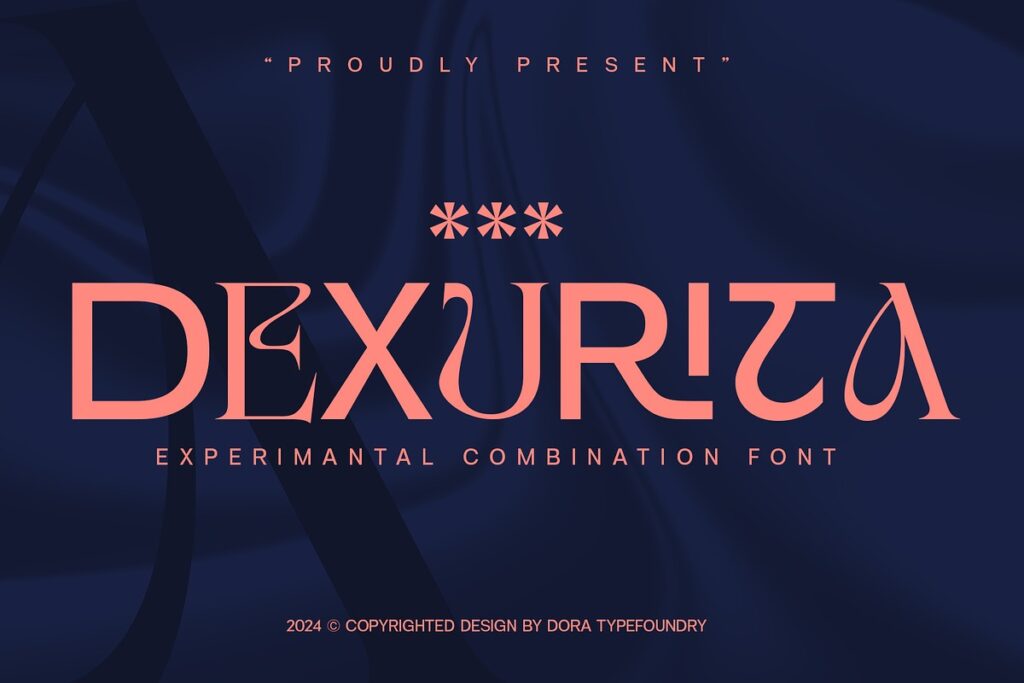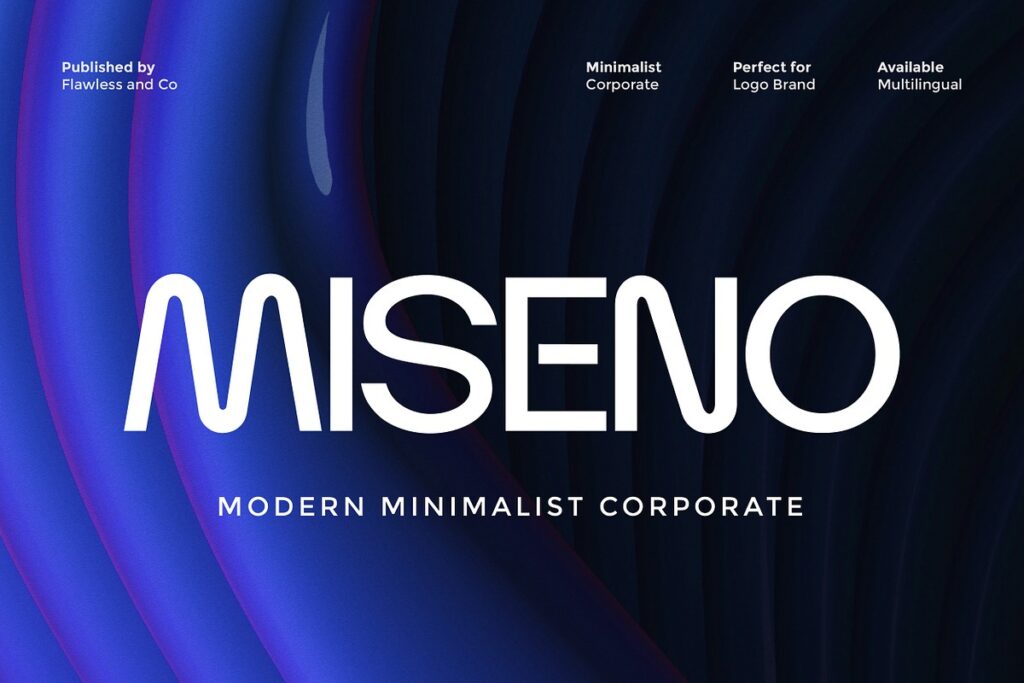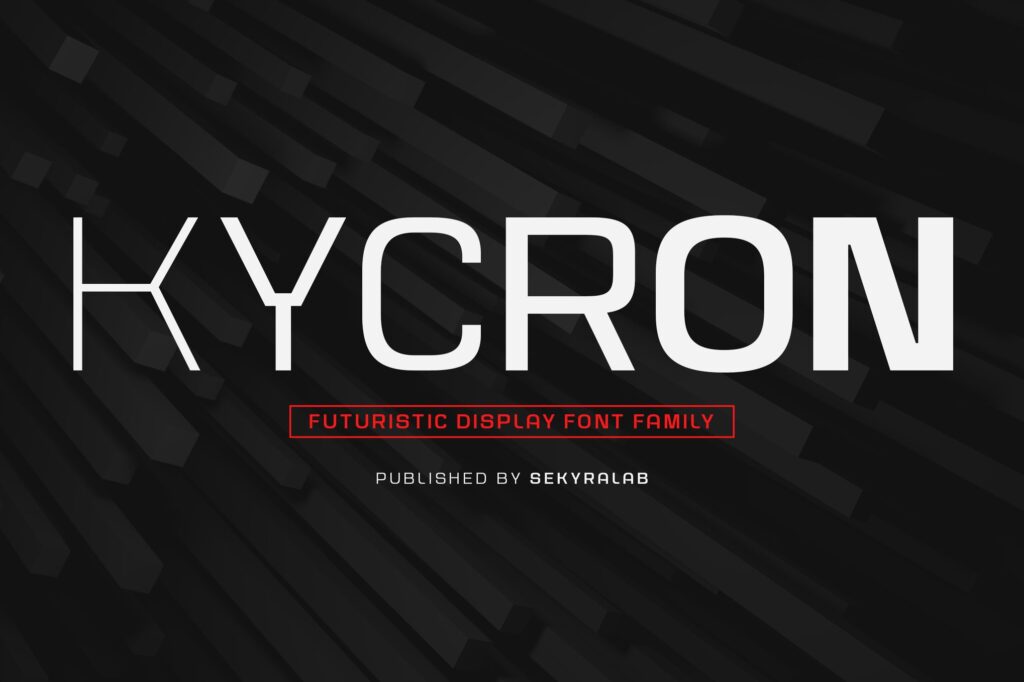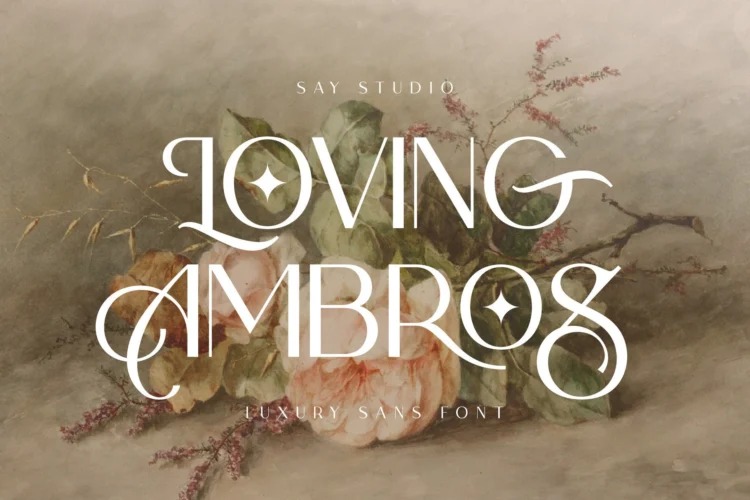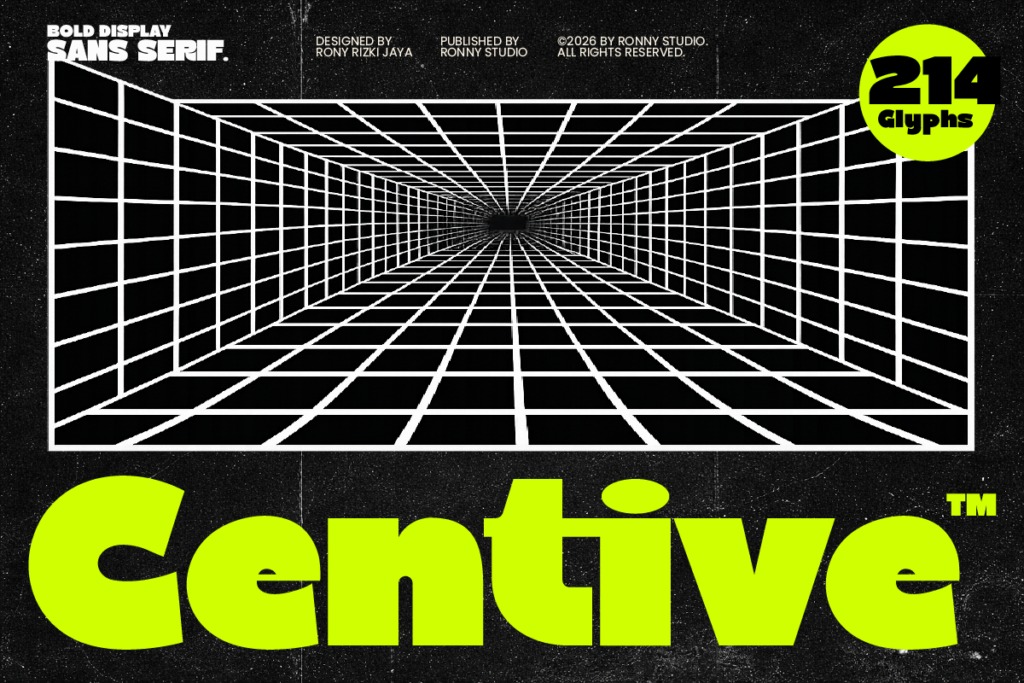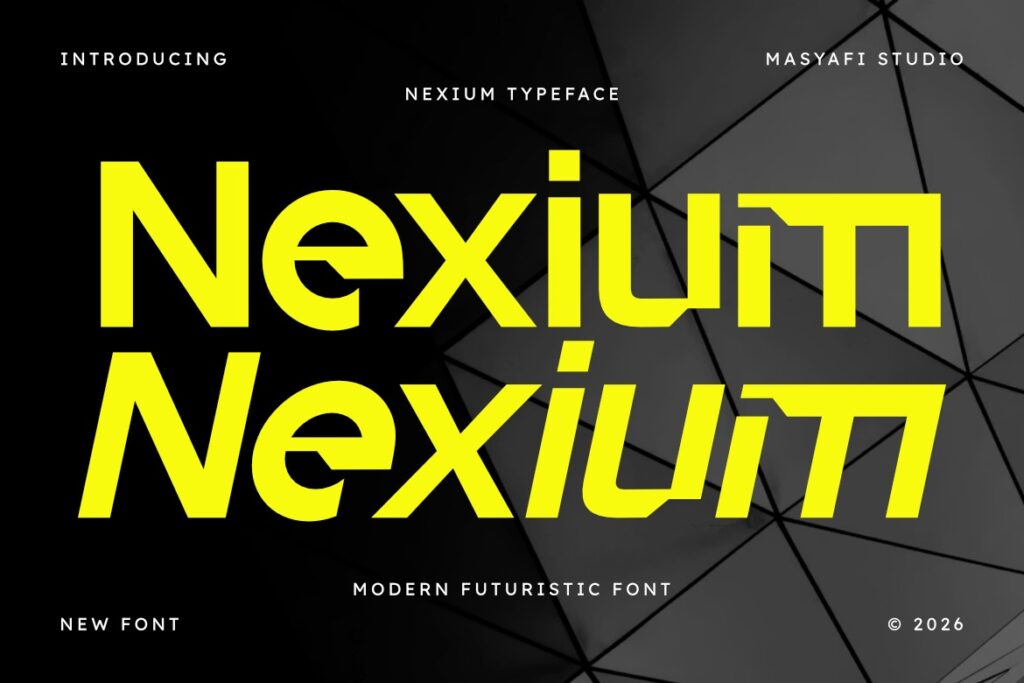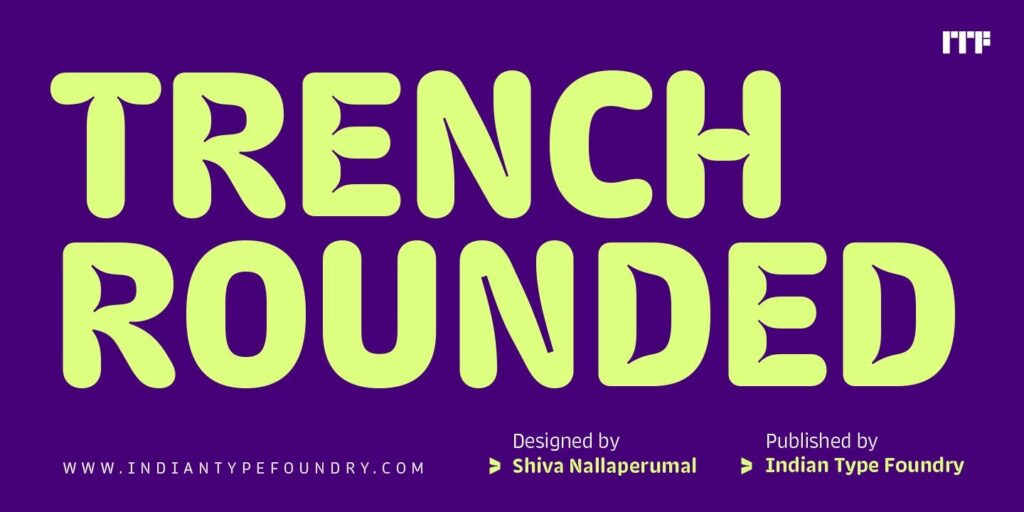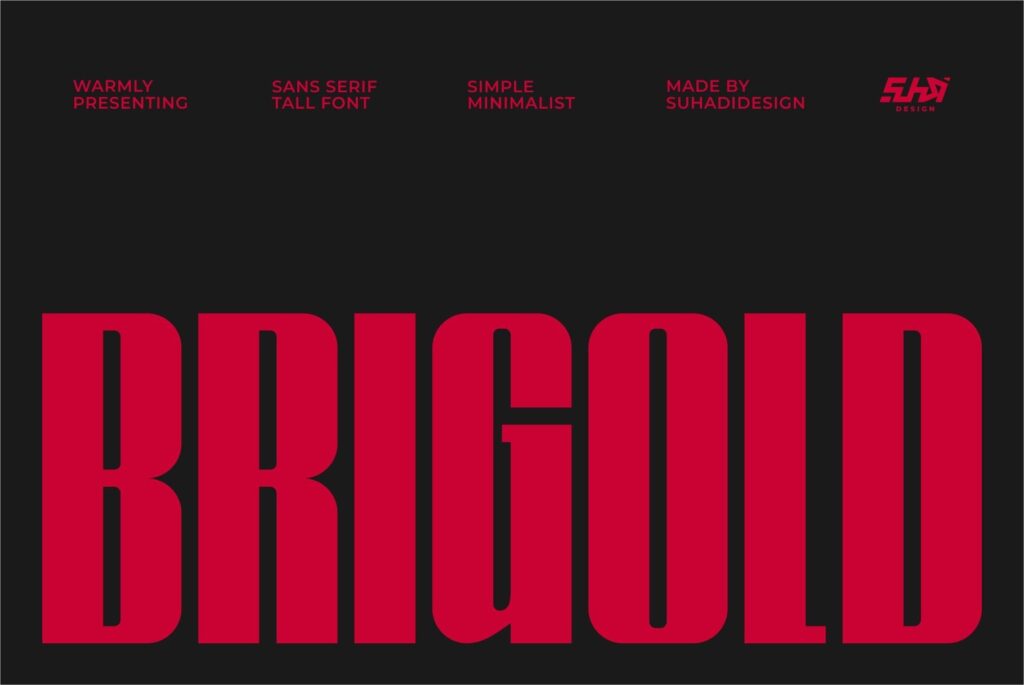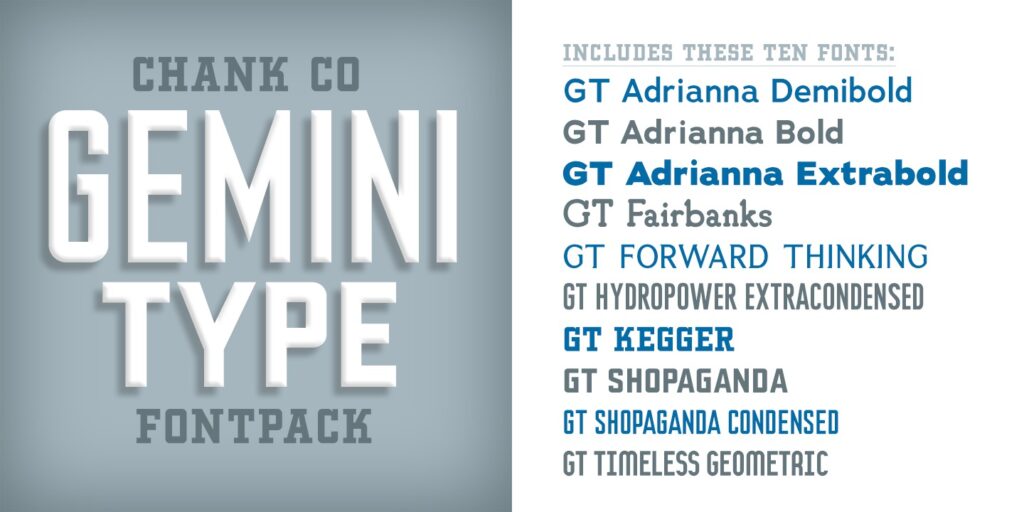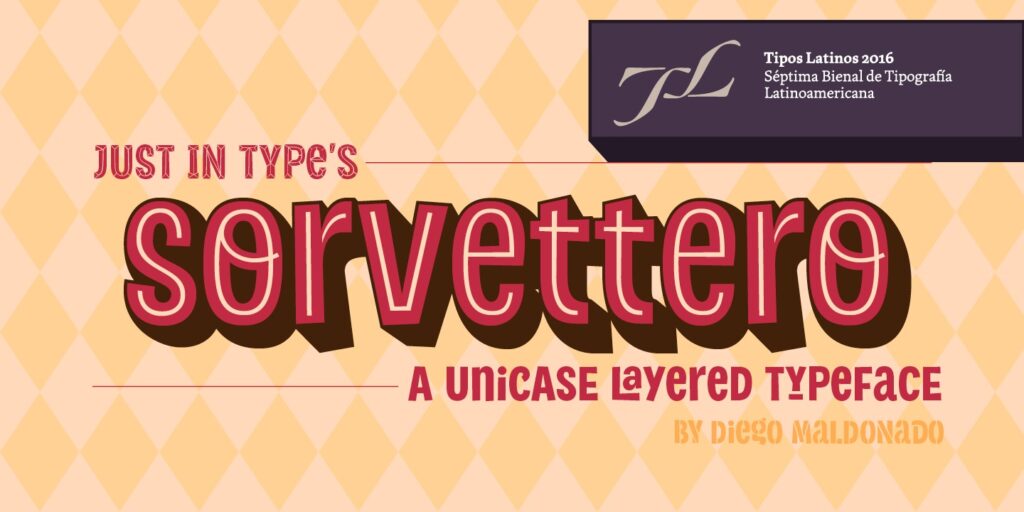
Dexurita – Mix Sans And Serif Font
Dexurita – Mix Sans And Serif Font is a stylish typeface that enhances visual appeal and works effortlessly in many design contexts. Dexurita is a mix of modern sans and serif combined in one beautiful and inspiring font.
Miseno – Minimal Sans Font
Miseno – Minimal Sans Font is a versatile font designed to adapt beautifully across different design styles, offering dependable readability and balance. Miseno is a minimalist and modern corporate sans serif font crafted to deliver a clean
Kycron Font Family
Kycron Font Family brings a balanced structure and contemporary look, making it suitable for both digital and print design. Kycron is a futuristic display font family designed with precision, symmetry
Loving Ambros – Luxury Sans Serif Font
Loving Ambros – Luxury Sans Serif Font is a distinctive and expressive font crafted to bring personality, structure, and creative energy into your projects. Loving Ambros is a Luxury beautiful typeface and inspiring mix of classic calligraphy with 50 unique alternates and 69 unique ligatures. come with 2 versions regular & italic.
Sheirav – Geometric Font
Sheirav – Geometric Font is a flexible and reliable font created to fit multiple design needs, from branding and packaging to social media and editorial layouts. Sheirav is a contemporary, futuristic logo typeface defined by its sleek ligatures and precise geometric styling.
Centive – Bold Sans Font
Centive – Bold Sans Font is a stylish typeface that enhances visual appeal and works effortlessly in many design contexts. Centive is a bold display sans serif built with power, confidence, and a futuristic edge.
Nexium – Modern Futuristic Font
Nexium – Modern Futuristic Font brings a balanced structure and contemporary look, making it suitable for both digital and print design. Nexium is a cutting-edge futuristic font designed to bring a bold, high-tech aesthetic
Trench Rounded Font Family
Trench Rounded Font Family is a premium-quality font developed to enhance your work with a polished, modern, and visually elevated look. Trench Rounded is part of the Trench superfamily, which also includes Trench Slab
Brigold – Condensed Font
Brigold – Condensed Font is a distinctive and expressive font crafted to bring personality, structure, and creative energy into your projects. Brigold is a stylish sans serif font with a distinct style and an elegant, thin thickness that has become a market favorite
Gemini Type Fontpack Font
Gemini Type Fontpack Font is a clean and thoughtfully built typeface that works seamlessly for both professional branding and everyday creative uses. Gemini Type Fontpack Font, an industrial-strength OpenType font bundle inspired by and optimized for dimensional type
Sorvettero Font Family
Sorvettero Font Family is a versatile font designed to adapt beautifully across different design styles, offering dependable readability and balance. Sorvettero is a sans, layered and unicase typeface inspired by some wood signs at Descansópolis
Pusia Font Family
Pusia Font Family is a distinctive and expressive font crafted to bring personality, structure, and creative energy into your projects. Pusia is a versatile font family with a lot of character and warmth. It is a professional, contemporary sans serif with original letter forms
Befort – Modern Diplay Font
Befort – Modern Diplay Font is a flexible and reliable font created to fit multiple design needs, from branding and packaging to social media and editorial layouts. Befort – A sleek modern display font that effortlessly blends straight lines with subtle curves to create a unique and sophisticated look!
Giner Modern – Logo Font
Giner Modern – Logo Font is a versatile font designed to adapt beautifully across different design styles, offering dependable readability and balance. Giner Modern is a contemporary sans-serif font family designed for strong corporate branding and modern logo design.
Black Molding – Diplay Sans Serif Font
Black Molding – Diplay Sans Serif Font is a flexible and reliable font created to fit multiple design needs, from branding and packaging to social media and editorial layouts. Black Molding is a bold industrial display sans serif designed for heavy construction